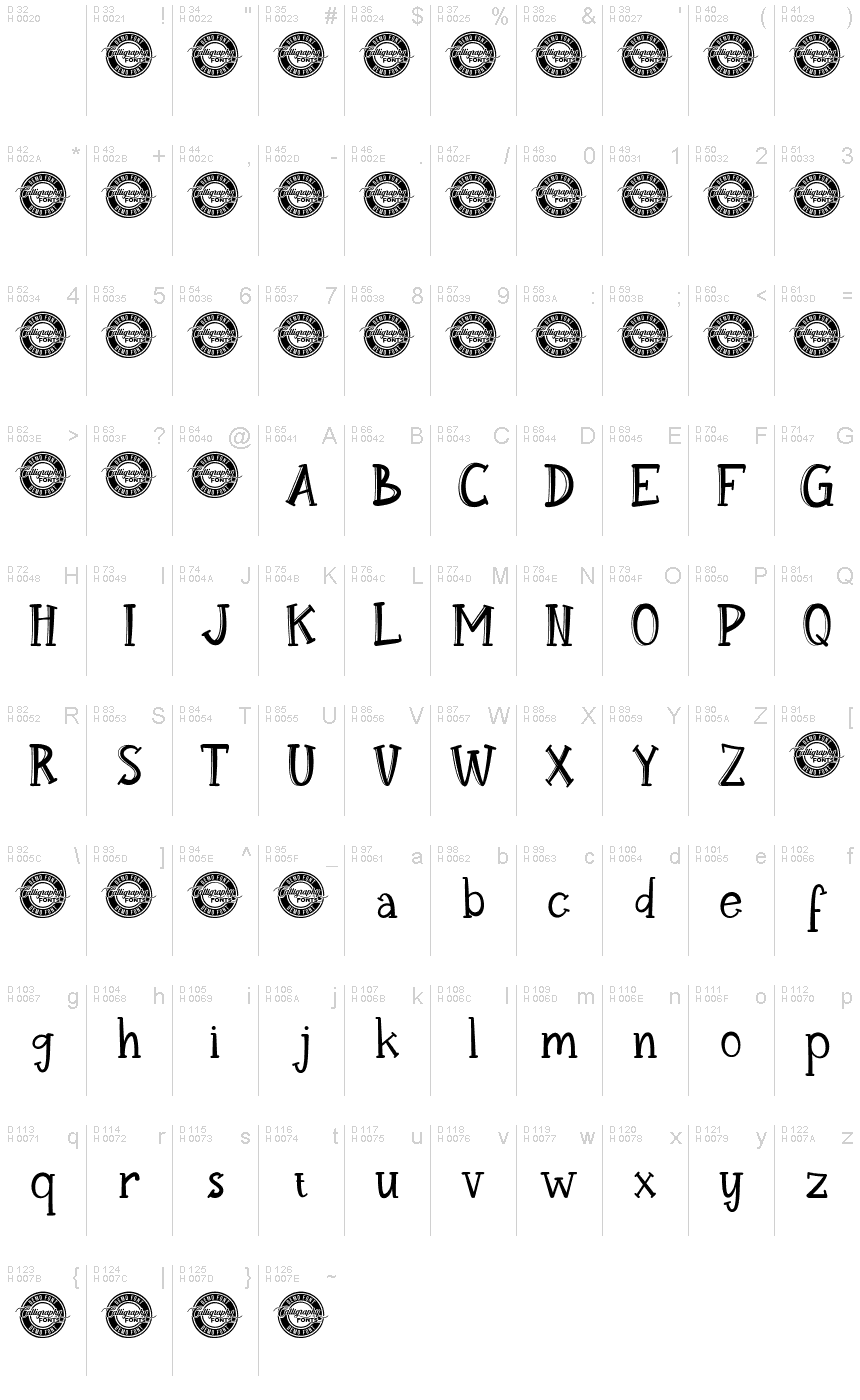
Coffee Dream Demo
Coffee Dream, a creation of Calligraphy Fonts, is a captivating display font that effortlessly embodies elegance and sophistication. With its fluid strokes and graceful curves, this font is perfect for adding a touch of charm to any project.
Its versatility makes it suitable for various designs such as wedding invitations, branding materials, packaging, and social media graphics. Whether you're aiming for a classic or modern look, Coffee Dream's unique style will surely captivate and leave a lasting impression on your audience.
Let your creativity flow with the enchanting Coffee Dream font.